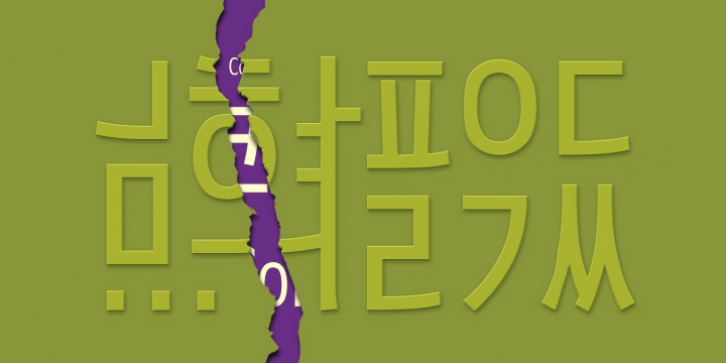
Core Label is a condensed sans serif font. You will be able to manage a lot of information into limited spaces with Core Label.
Its highly legible even in condensed forms and also clear at small sizes. Supported codepages are MS Windows 1252 Latin1 and MS Windows 949 Korean consisting of 11,172 Korean letters and Symbols, except Chinese. This Type-face is good for narrow spaces such as Labels, Books and so on.